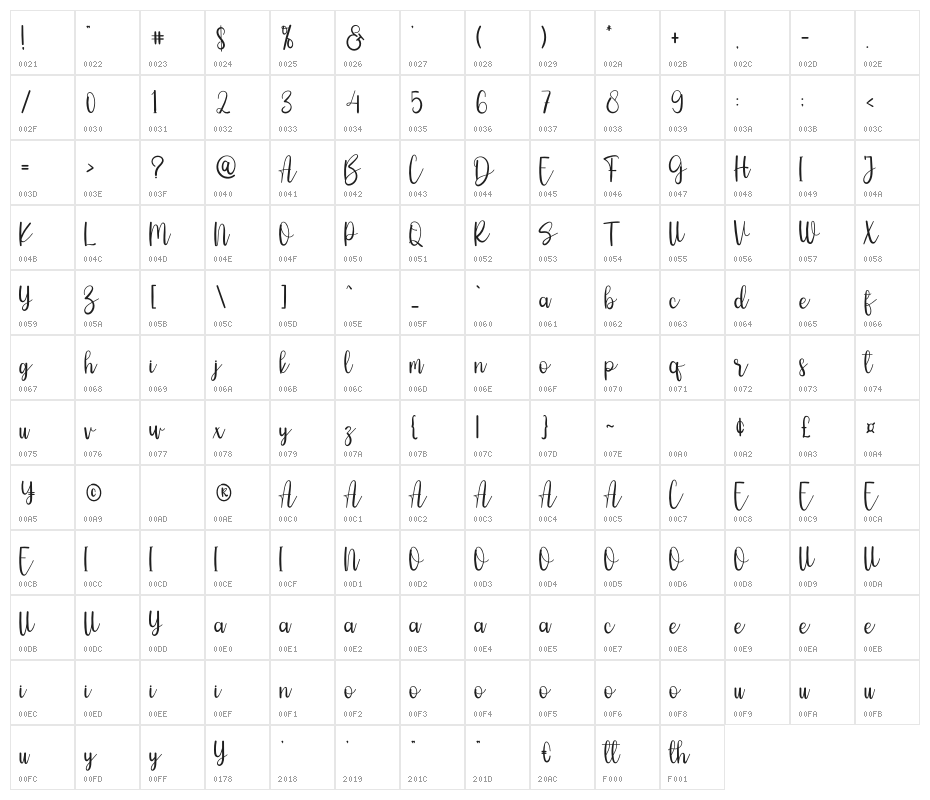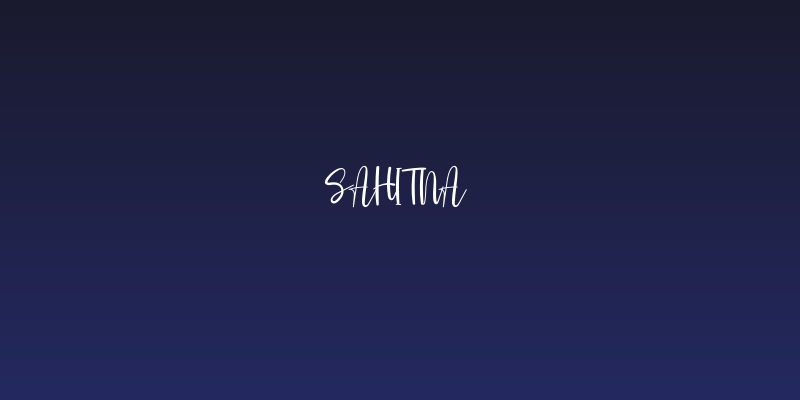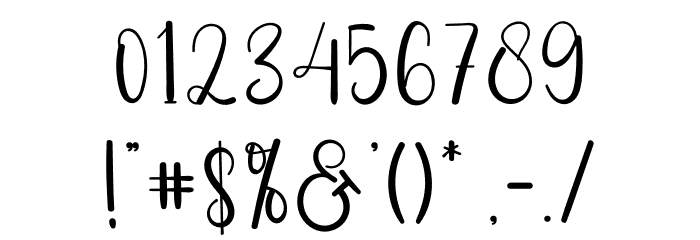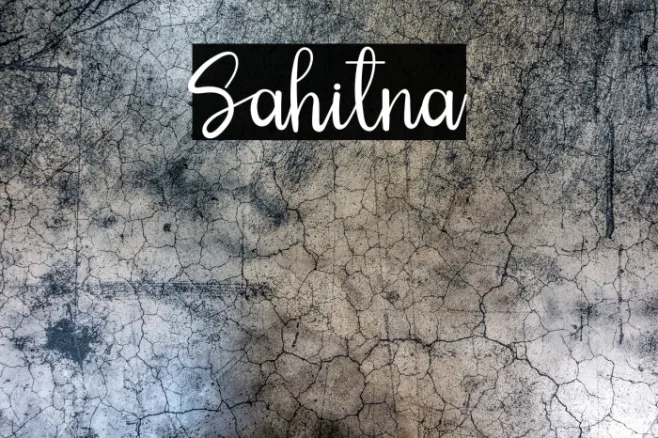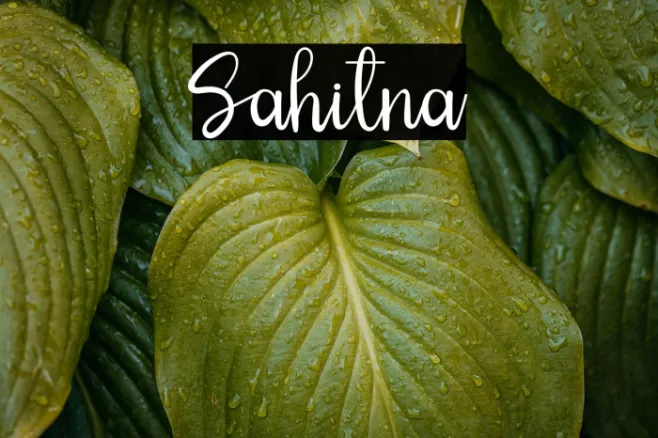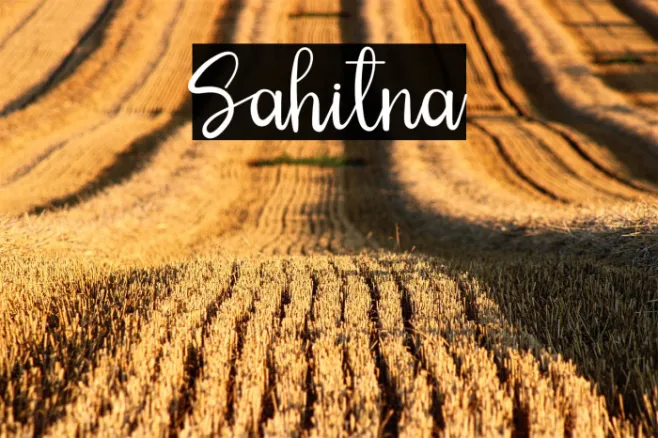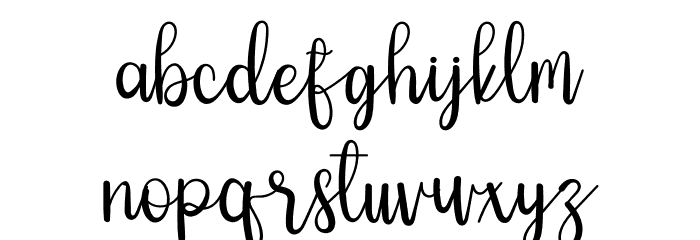
Sahitna Font
Sahitna Description
This font features a lively and flowing script style, characterized by its elegant, cursive letters that mimic the fluidity of handwriting. The uppercase letters are bold and sweeping, with dramatic loops and flourishes, while the lowercase letters maintain a consistent rhythm with gentle curves and connections. The numerals are distinct yet harmonize well with the overall script style, and the special characters are creatively integrated, adding to the font's playful and artistic appeal. This font exudes a sense of creativity and personal touch, making it ideal for projects that require a personal or artistic flair.